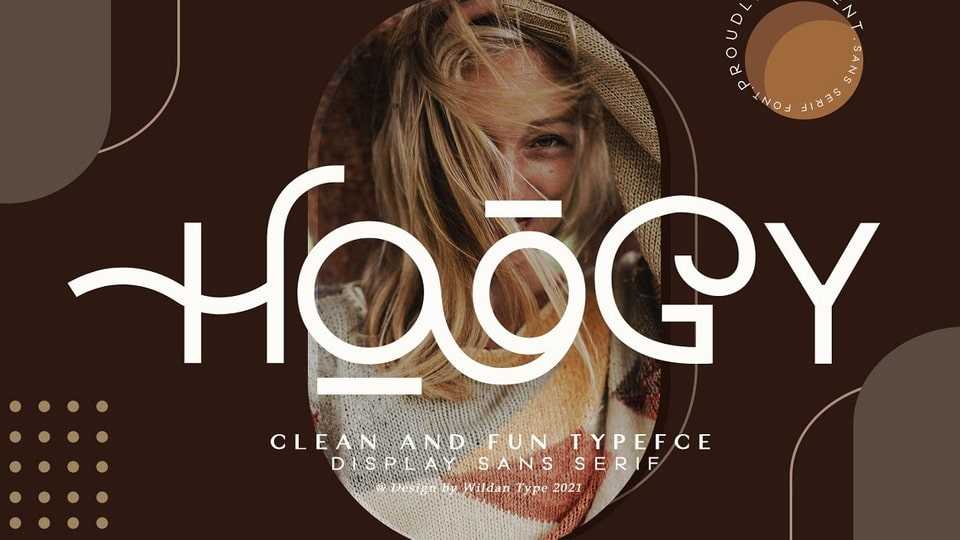
Download Hoogy font, a cool and modern sans serif typeface. Use Hoogy font for your designs and explore its endless possibilities.
Designer: Wildan Type